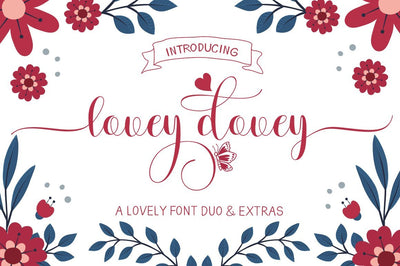
Lovey dovey Font Duo Plus Extras
Lovey dovey Font Duo Plus Extras is a new modern script font with an irregular baseline. Trendy and feminine style. Sweet Love looks lovely on wedding invitations, thank you cards, quotes, greeting cards, logos, business cards and more. Perfect for using in ink or watercolour. Including initial and terminal letters, alternates, ligatures and multiple language support.